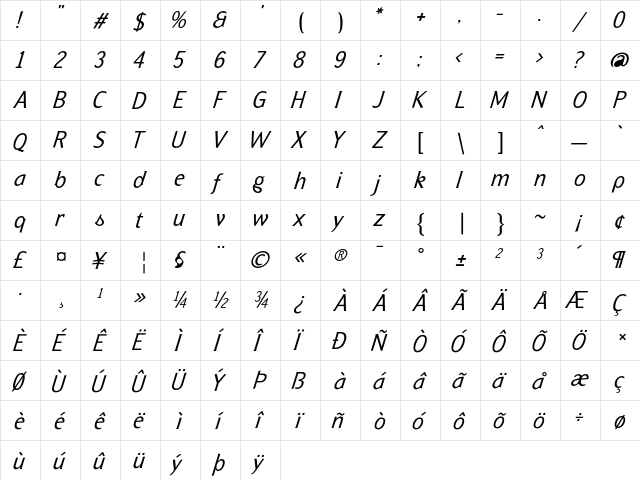
Formica Italic Font Preview
Formica Italic
Design Context for Formica Typeface
Formica is a composed and adaptable typeface that performs quietly and consistently across a wide range of design contexts. The dynamic lean of this cut emphasises speed and emphasis in any layout.